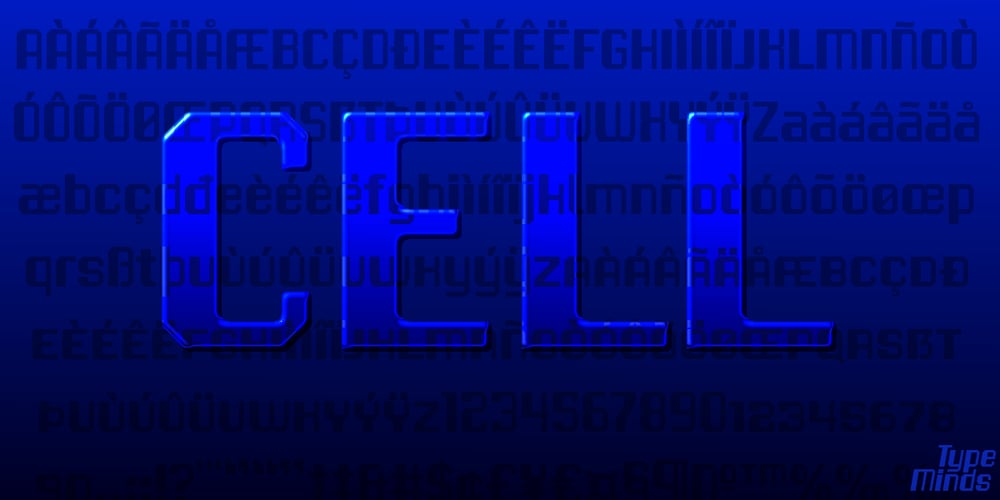
Cell Font Family was designed by Tucker Meyers and published by Type Minds. Cell contains 2 styles and family package options. Cell is a sturdy, geometric typeface with many potential applications. Though it is best suited to display sizes, its construction is simple enough for use in smaller settings. Its octagonal, almost mechanical design is softened by rounded corners. The face is characterized by a single thick stroke in each letter, lending it a unique appearance. It also features an oblique counterpart with several italic-style glyphs. Both members of the family also include small capitals mapped to the Private Use Area. Cell was designed to be at once simple and unique. Its grid-based structure is enhanced by slight adjustments for optical consistency. Glyphs which are normally round instead have 45-degree angles at the corners, sticking to the grid system without losing legibility.